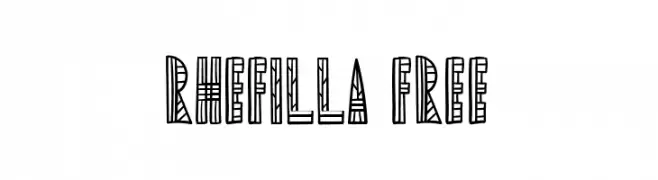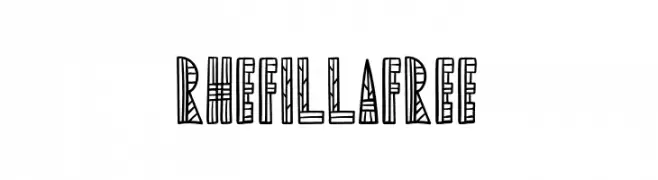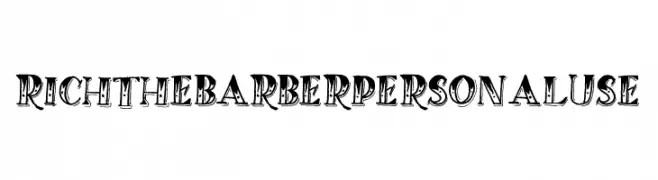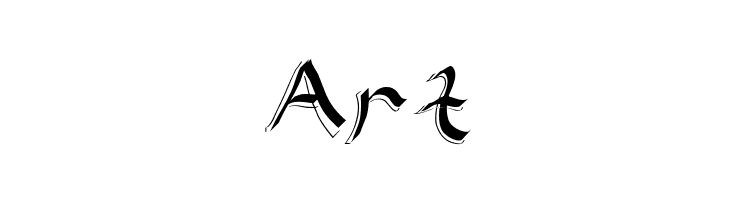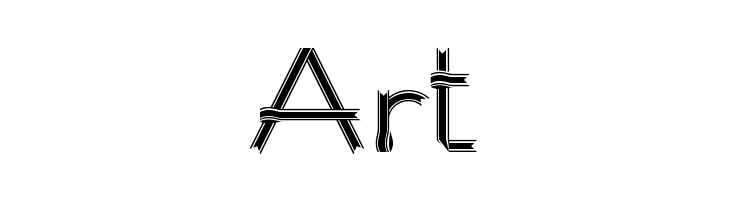
( Fonts by Vunira Design )
A bold, decorative font with intricate line patterns for a striking, artistic look.
( Fonts by Vunira Design )
A bold, decorative font with a unique striped pattern and strong outlines.
( christianmunk.blogspot.com/ )
A decorative font with ribbon-like, angular characters and a bold, vintage-modern style.
( Rafael Saldaña - ikarusmedia.deviantart.com/gallery/ https://www.dafont.com/es/dotgrid.font )
An intricate, ribbon-like decorative font with elegant curves and lines.
( Fonts by Billy Argel )
A bold, hand-drawn font with vintage flair and artistic strokes.
A bold, angular font with lightning bolt elements for a dynamic look.
( Fonts by weknow - Wino S Kadir )
A bold, angular font with a dynamic, lightning-inspired design.